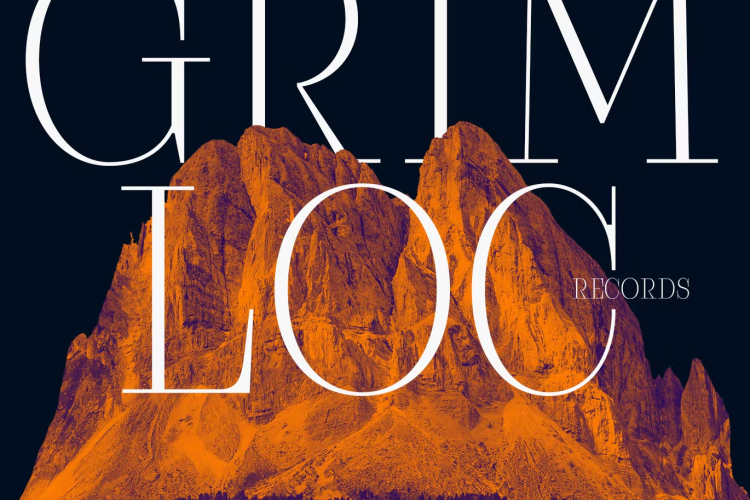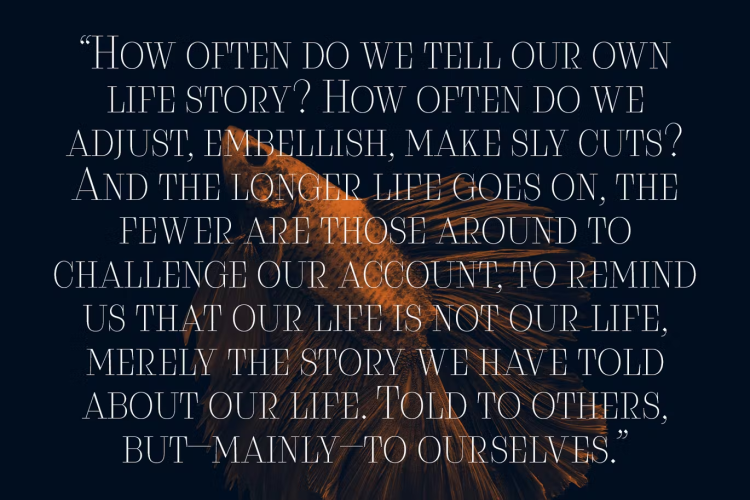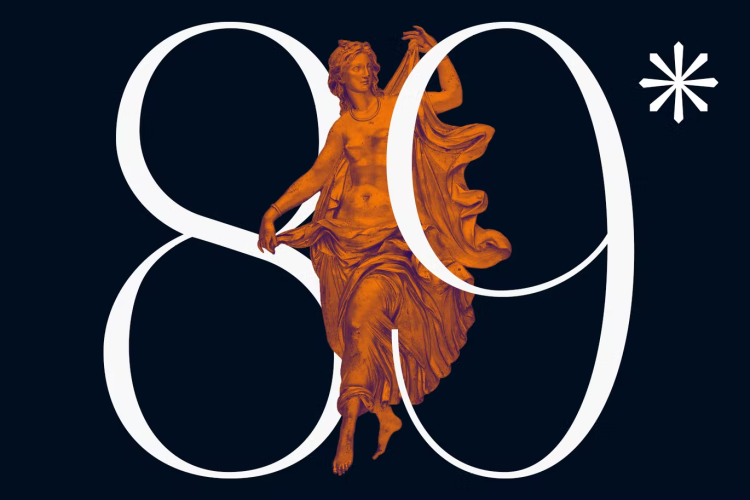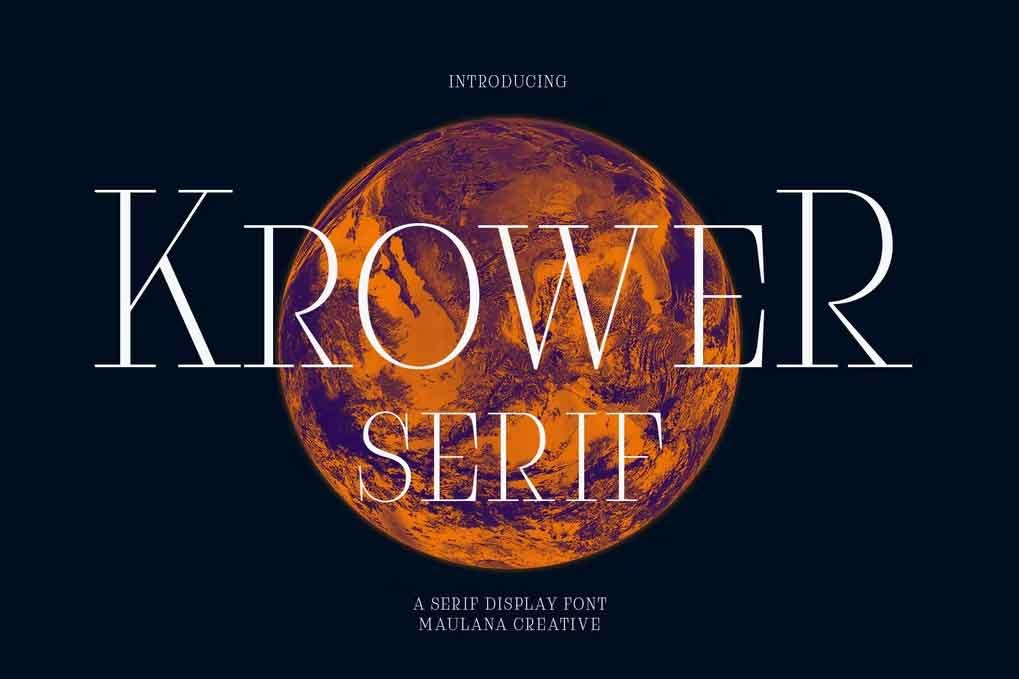
Krower Serif Display Font
Krower is a Caps and Small Caps Display Serif font. With light contrast stroke, Strong character with a bit of ligatures and alternates. To give you an extra creative wo…
Krower is a Caps and Small Caps Display Serif font. With light contrast stroke, Strong character with a bit of ligatures and alternates. To give you an extra creative work. Krower font support multilingual more than 100+ language. This font is good for logo design, Social media, Movie Titles, Books Titles, a short text even a long text letter and good for your secondary text font with sans or script. Make a stunning work with Krower font.
Where Krower Serif Display Font works best
Krower Serif Display Font gives long-form text a classic, trustworthy rhythm — ideal for magazine spreads, annual reports and book interiors.
Pair Krower Serif Display Font with generous letter-spacing for wordmarks in fashion, hospitality, wine and jewellery branding.
Use Krower Serif Display Font for slide titles in Keynote, PowerPoint or Google Slides to add authority without looking dated.
What is Krower Serif Display Font good for?
Krower Serif Display Font is a Serif Fonts typeface tagged Branding, Creative, Display, Readable. It works well for headlines, logos, posters, social media graphics and branding projects that need a distinctive serif fonts look.